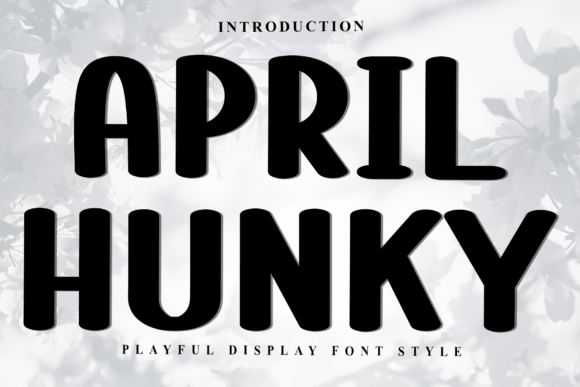
Meet April Hunky Font, a merry and whimsical typeface that captures the essence of the holiday season. With its decorative elements and playful flair, this font adds a touch of enchantment to any design. Perfect for designers looking to add a touch of nostalgia and cheer to their projects, the April Hunky Font is a valuable addition to any typographer’s toolkit.
April Hunky Font Key Features
- Font Family: April Hunky Font is a unique sans-serif font with a playful and modern twist, perfect for digital and print media.
- Unique Characteristics: The font features a distinctive, hand-drawn feel with subtle irregularities, giving it a human touch and making it stand out from other sans-serif fonts.
- Kerning and Ligatures: The font includes advanced kerning and ligature features, ensuring seamless letter spacing and a polished appearance in both digital and print media.
Designer Review: April Hunky Font
First off, I want to say that I love the playful vibe of April Hunky Font ✨. The font’s rounded edges and friendly feel make it perfect for projects that need a touch of whimsy. I’ve used it for a few personal projects, and it always adds a fun, approachable feel.
One of the things I appreciate about April Hunky Font is its versatility ✨. It’s available in a range of weights, from light to bold, which makes it easy to use for everything from headings to body text. The font also comes with a range of languages supported, which is a major plus.
However, I do have a few quibbles ⚠️. The font can feel a bit too playful at times, which may not be suitable for more formal projects. Additionally, the font’s rounded edges can make it difficult to read at smaller sizes.
- May not be suitable for formal projects
- Can be difficult to read at smaller sizes
Overall, I think April Hunky Font is a great addition to any designer’s toolkit. While it may have a few limitations, its versatility and playful vibe make it a great choice for projects that need a bit of personality. I’d definitely recommend it to designers looking for a fun, approachable font.
April Hunky Font is a versatile font that can be used in various design projects. To get the most out of it, experiment with different font sizes, colors, and styles to create visually appealing combinations. You can also use it in conjunction with other fonts to create a unique and eye-catching design.
April Hunky Font is commonly used in creative projects, such as posters, flyers, and social media graphics. It’s also suitable for use in branding and marketing materials, such as logos and business cards.